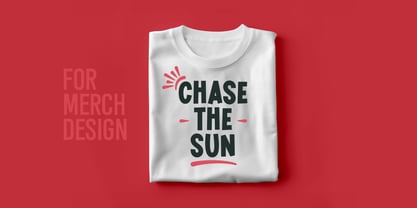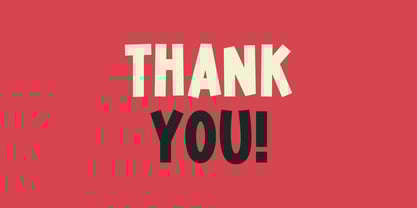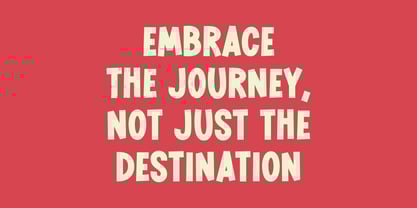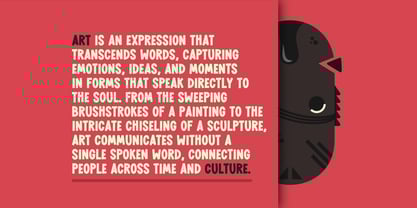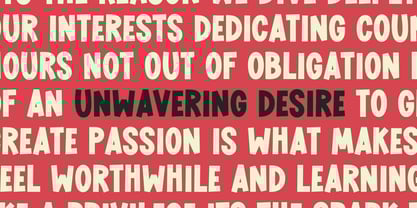
Merry Mischief
Merry Mischief is a playful, quirky handwritten font that brings a lighthearted touch to any design. With its lively strokes and whimsical charm, this font is perfect for adding a dash of personality to invitations, cards, or creative projects that call for a bit of fun and flair!